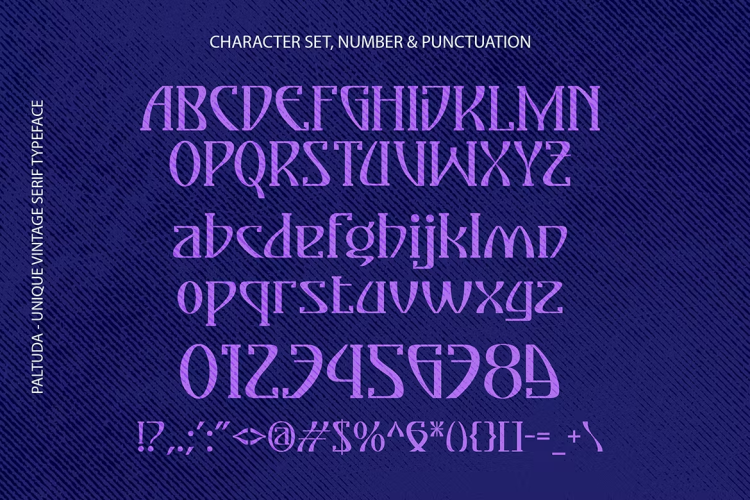
Paltuda Unique Vintage Font
Paltuda – Unique Vintage Serif Typeface
Unique Typeface Font Paltudai for your personal or business purpose come with 3 different style, (Regular,Bold,Black)
Paltuda Unique Vintage Font is a Serif Fonts font that brings a professional and versatile look to your projects. Paltuda – Unique Vintage Serif Typeface Unique Typeface Font Paltudai for your personal or business purpose come with 3 different style, (Regular,Bold,Black) what includes on ZIP *font format ( OTF, TTF.